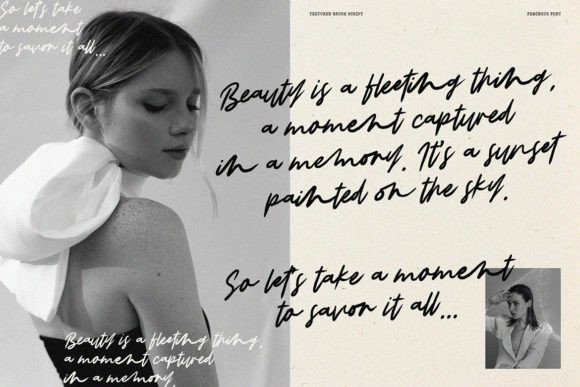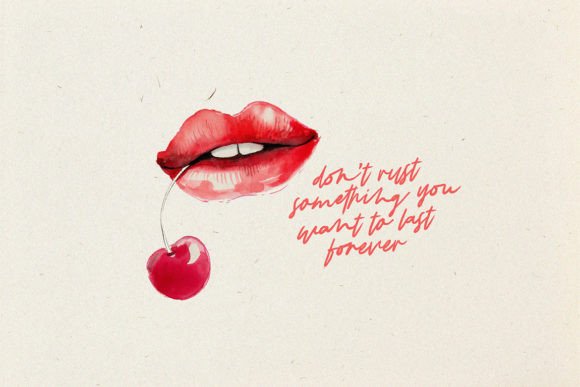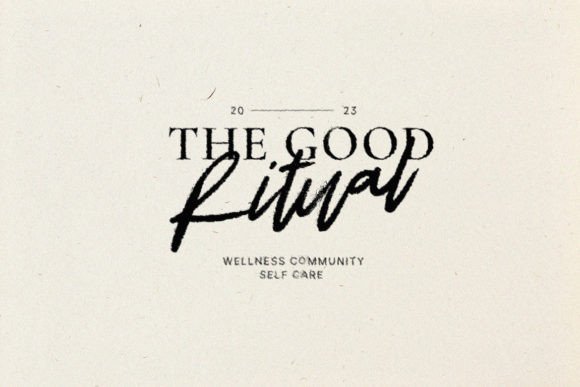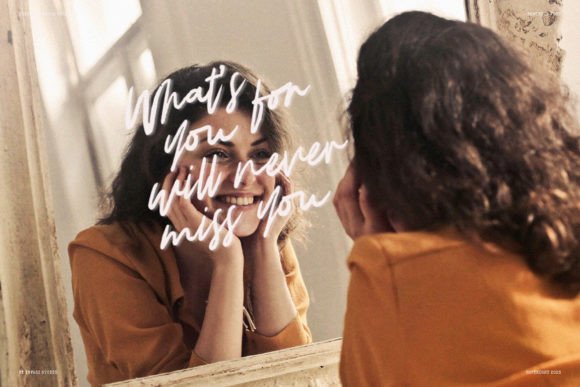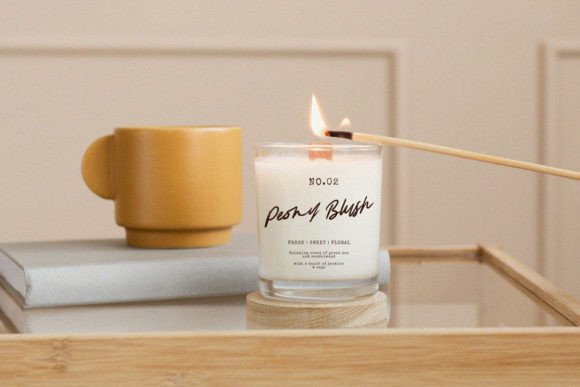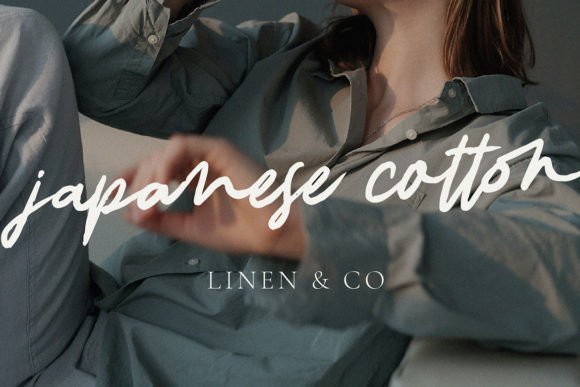
The Elusive Font: A Designer’s Quest for Elegance
I still remember the countless hours I spent searching for the perfect font for a wedding invitation project. My client wanted something elegant, sophisticated, and unique. I scrolled through font after font, but nothing seemed quite right. That was until I stumbled upon Feminous Font. With its flowing curves and delicate details, it was love at first sight! In this article, I’ll share my experience with Feminous Font, its features, and how to make the most of it in your design projects.
An Honest Review of Feminous Font
- ✨ Elegant and sophisticated design, perfect for high-end branding and wedding invitations
- ✅ PUA encoded, making it easy to access all delightful glyphs and swashes
- 💫 Flowing curves and delicate details that add a touch of luxury to any design
- 🎨 Highly versatile, suitable for a wide range of design projects, from digital to print
While Feminous Font is a stunning addition to any design project, there are a few things to keep in mind:
- ⚠️ As a PUA encoded font, some software may not support the full range of glyphs and swashes
- 🤔 May require some experimentation to get the perfect combination of glyphs and swashes
The Designer Inspiration Behind Feminous Font
Feminous Font was designed with the intention of creating a beautiful, elegant script font that captures the essence of luxury and sophistication. The designer drew inspiration from classic calligraphy and modern typography, combining the two to create a unique and stunning font. While the designer’s true identity remains a mystery, their passion for typography and design is evident in every detail of Feminous Font.
Q: What is PUA encoding, and how does it affect Feminous Font?
A: PUA (Private Use Area) encoding is a way of encoding fonts that allows for a wider range of glyphs and swashes. In the case of Feminous Font, PUA encoding makes it easy to access all the delightful glyphs and swashes, adding to the font’s elegance and sophistication.
Q: Is Feminous Font suitable for digital and print designs?
A: Yes, Feminous Font is highly versatile and suitable for both digital and print designs. Its elegant and sophisticated design makes it perfect for a wide range of projects, from wedding invitations to high-end branding.